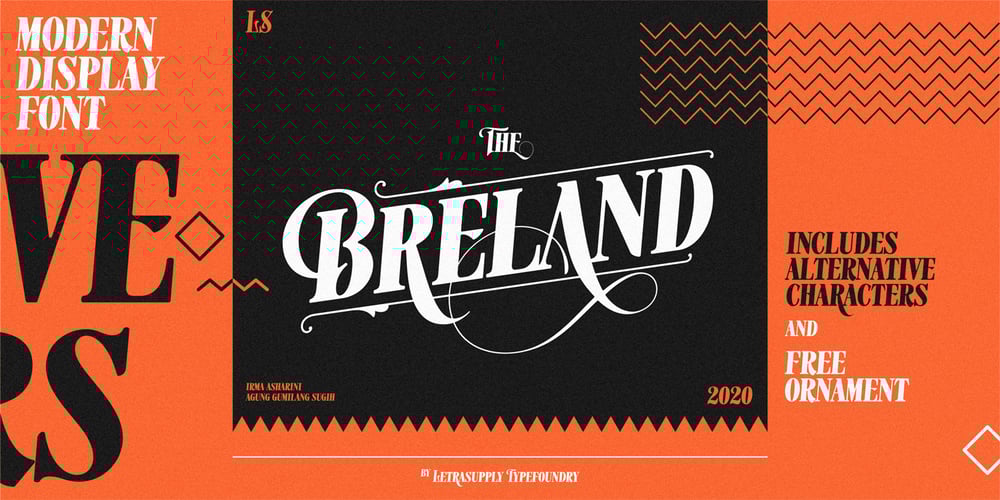
Breland Font Family was designed by Agung Gumilang Sugih, Irma Asharini and published by Letrasupply Typefoundry. Breland contains 2 styles and family package options. This new high-contrast serif display typeface comes along with so many alternate characters featured. Breland has both beauty and bold looks over the whimsy swash and firm curves, that it will be perfect for display purpose, branding, web, editorial and prints.